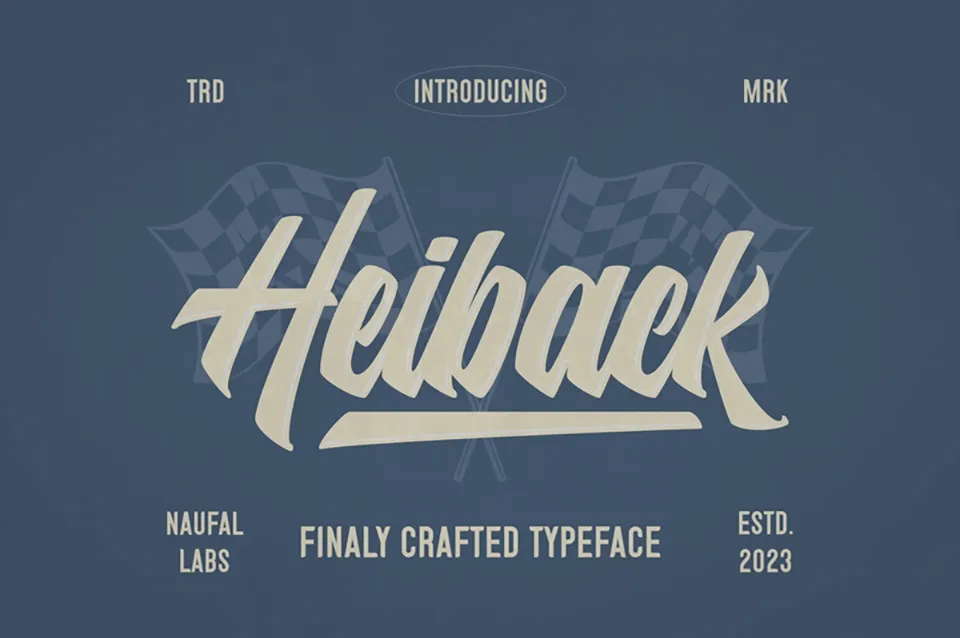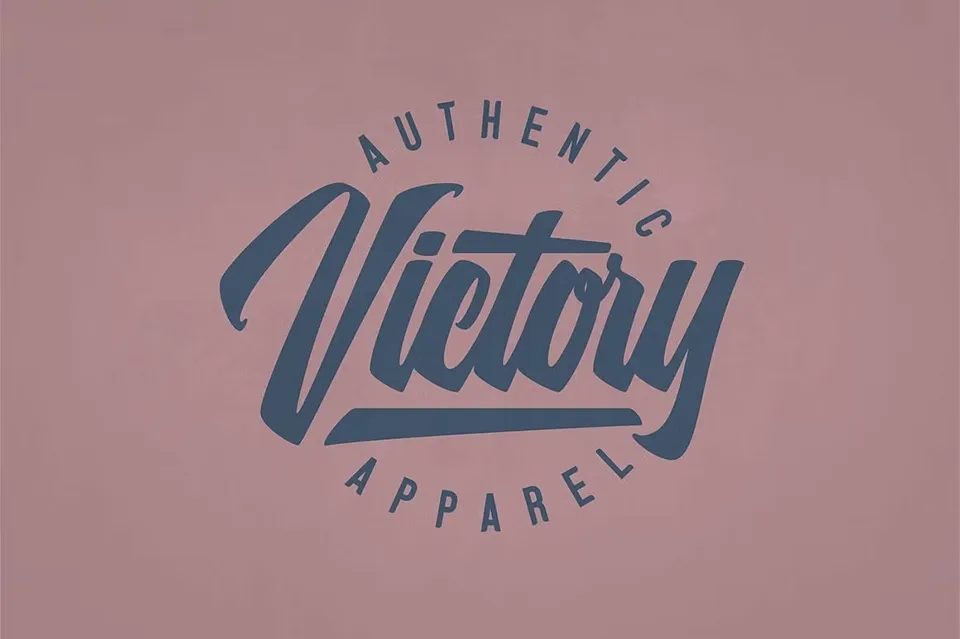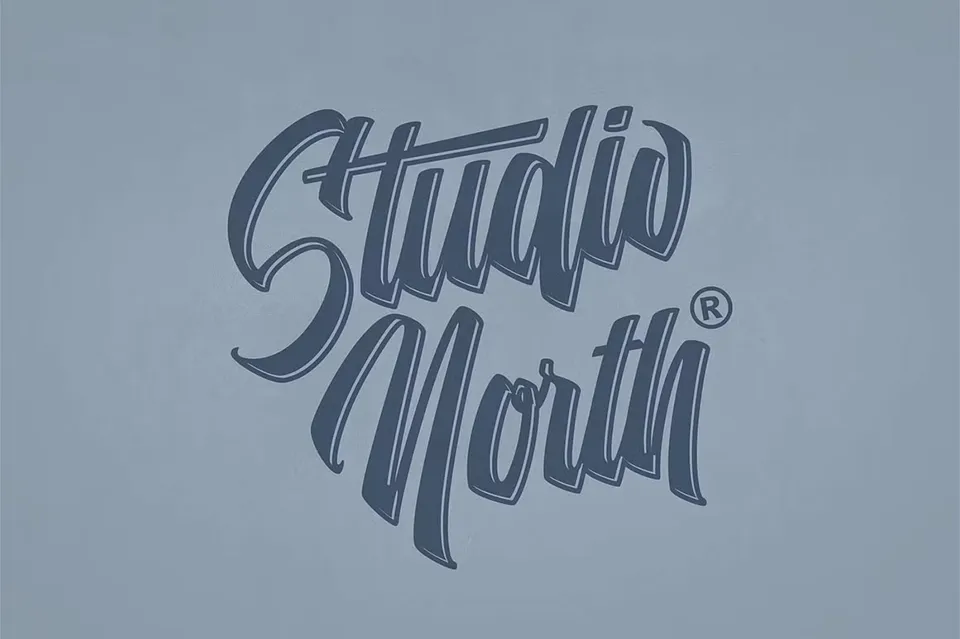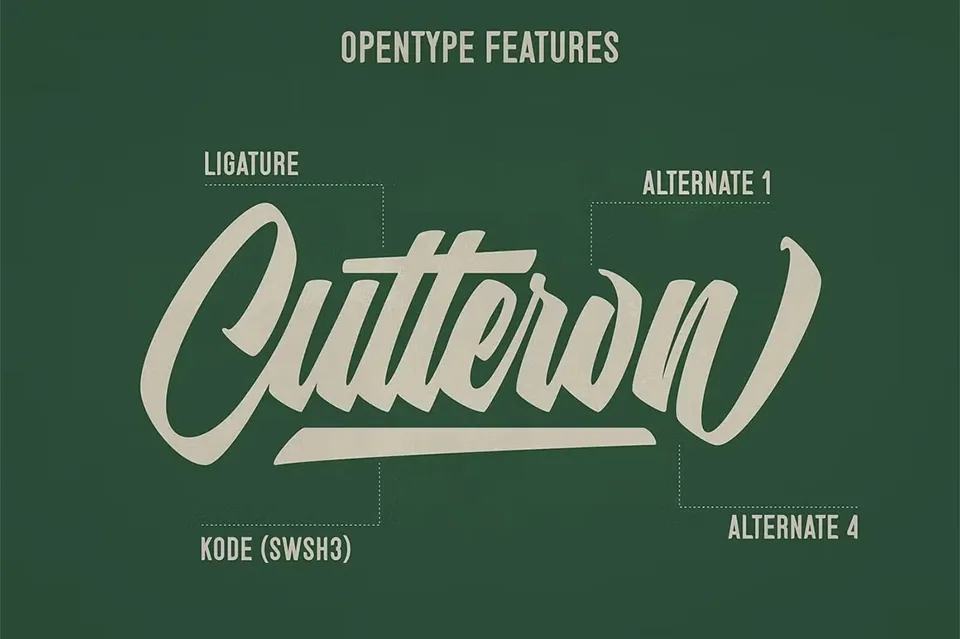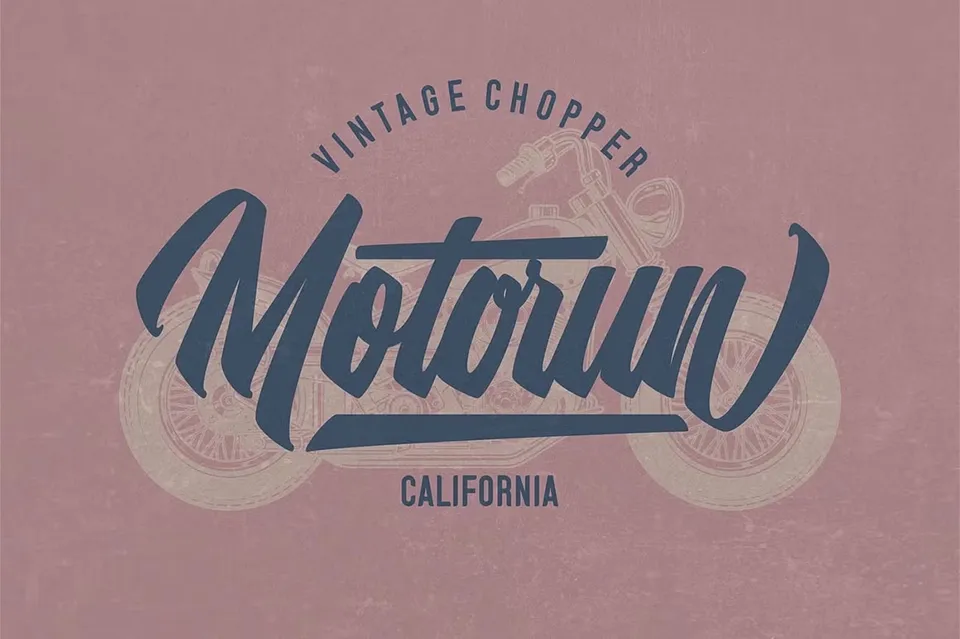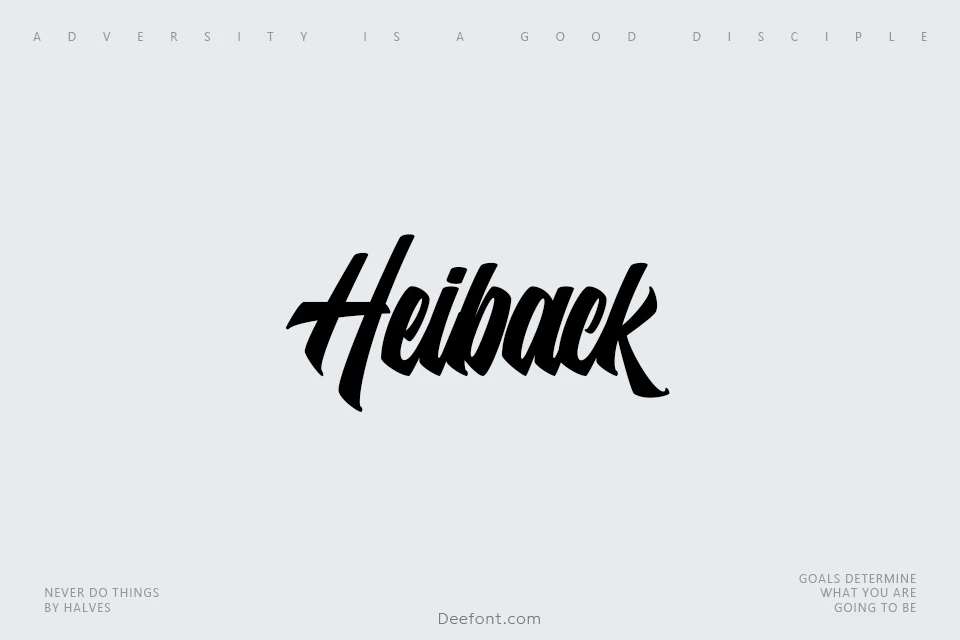
Heiback Font
Heiback Font, presented by Naufal Labs, is a bold and dynamic typeface crafted with a distinct script style. Its thick, slanted letterforms possess the energetic look of confident brush strokes, creating a sense of movement and impact. Established in 2023, this font has a handcrafted feel, blending modern script design with a potential nod to vintage racing aesthetics, as suggested by its visual presentation. Heiback is ideal for eye-catching headlines, logos, posters, and branding projects that require a strong, expressive, and slightly retro character.